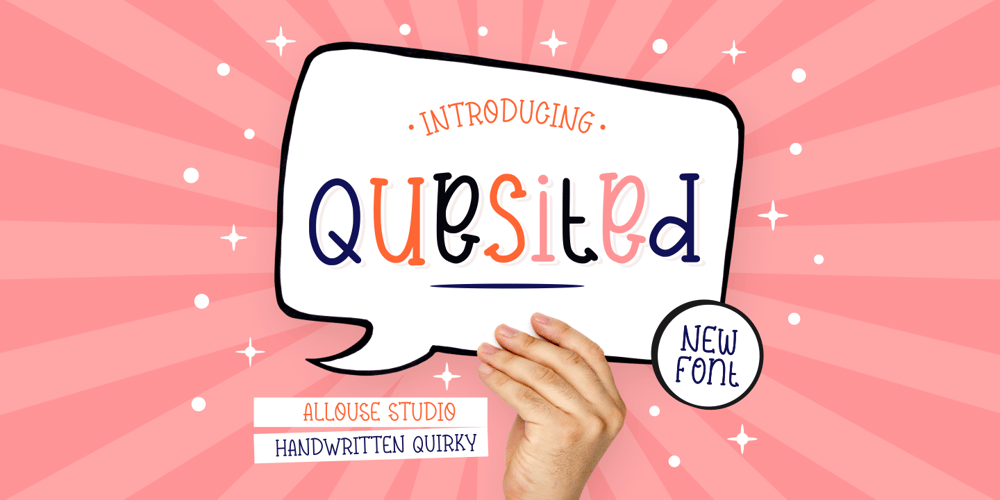
Quesited Font Family was designed by Fachrizal Yusuf and published by Allouse Studio. Quesited contains 1 styles and family package options. Proudly Preseningt, Quesited is a Handwritten Quirky Font.Quesited is perfect for any tittles, logo, product packaging, branding project, megazine, social media, wedding, or just used to express words above the background.Quesited come with Multi-Lingual Support.We highly recommend using a program that supports OpenType features and Glyphs panels like many of Adobe apps and Corel Draw, so you can see and access all Glyph variations.Enjoy the font, feel free to comment or feedback, send me PM or email. Thank You!